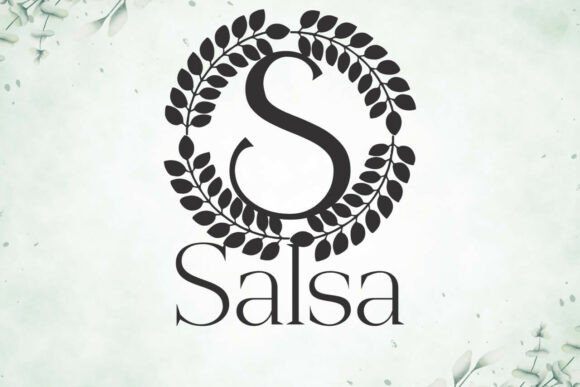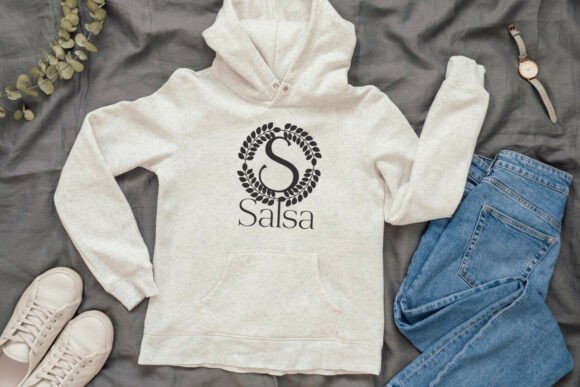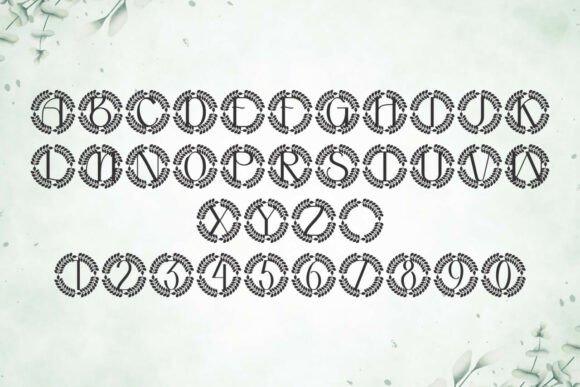
Introduction to Nuvoria Monogram Font
Have you ever found yourself staring at a blank canvas, trying to craft the perfect initial monogram for a client’s high-end project? The Nuvoria Monogram Font is here to save the day, offering a sophisticated and highly decorative typeface that instantly elevates simple initials into sleek, confident, and boutique-ready brand emblems. With its smooth, unwavering strokes and open counters, this beautiful decorative monogram typeface ensures that even the tiniest tags remain perfectly readable.
As a valuable resource for designers, the Nuvoria Monogram Font is perfect for creating high-quality design assets for creative projects, from wedding suites and elegant packaging to keepsake gifts and refined foil seals. Its expertly tuned curves make it an ideal choice for professional production, including foil, emboss, and deboss techniques.
Whether you’re looking for a unique design element or a free download to add to your design resource library, the Nuvoria Monogram Font is a must-have for any serious designer. With a transparent background and seamless integration with modern serifs, this typeface is sure to elevate your designs to the next level.
Key Features of Nuvoria Monogram Font
- High-quality design: The Nuvoria Monogram Font is designed to be a premium resource for your creative project, offering a sophisticated and elegant look.
- Perfect for branding: The Nuvoria Monogram Font is ideal for creating custom logos, branding materials, and other design elements that require a unique and elegant touch.
Honest Review: Nuvoria Monogram Font
I recently stumbled upon the Nuvoria Monogram Font while searching for design resources for a creative project. I was impressed by its high quality and the fact that it’s available for free download.
Here are some things that work well about the Nuvoria Monogram Font:
- ✨ Beautiful and elegant design, perfect for weddings, special occasions, or any project that requires a touch of sophistication.
- ✨ Offers a transparent background, making it easy to use in various design contexts.
- ✨ Highly versatile and can be used for a wide range of creative projects, from invitations to branding materials.
- ⚠️ The font may not be suitable for projects that require a more modern or edgy look, as its classic design may come across as too traditional.
- ⚠️ Some users may find the font’s size and spacing a bit restrictive, making it challenging to customize.
Overall, I’m quite impressed with the Nuvoria Monogram Font. It’s a great addition to any designer’s toolkit, and I appreciate that it’s available for free download. With its high quality and versatility, I have no hesitation in recommending it to fellow designers looking for a beautiful and elegant design resource.
Tips for Getting the Most Out of Nuvoria Monogram Font
For a high-quality design, use the Nuvoria Monogram Font in conjunction with a transparent background to create a clean and elegant look. You can also experiment with different font sizes and colors to add visual interest to your design.
The Nuvoria Monogram Font is perfect for creative projects, such as wedding invitations, business cards, and social media graphics. It’s also a great design resource for anyone looking for a unique and stylish font.